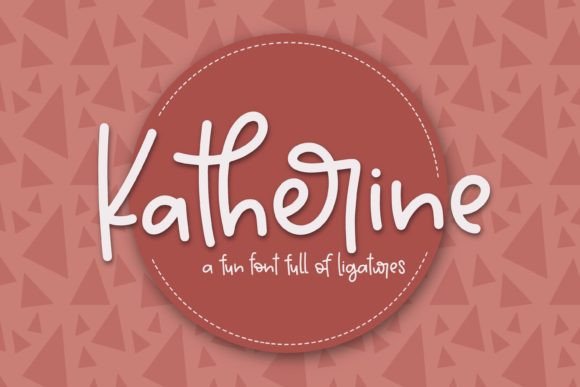
Katherine is a playful, hand-drawn script font full of personality and warmth. With a unique blend of ligatures, alternate characters, and doodles, it’s perfect for creative, informal projects like greeting cards, posters, invitations, and playful branding. Its flowing letters and whimsical design give it a friendly and approachable vibe, ideal for adding a personal touch to any text.
Katherine Font